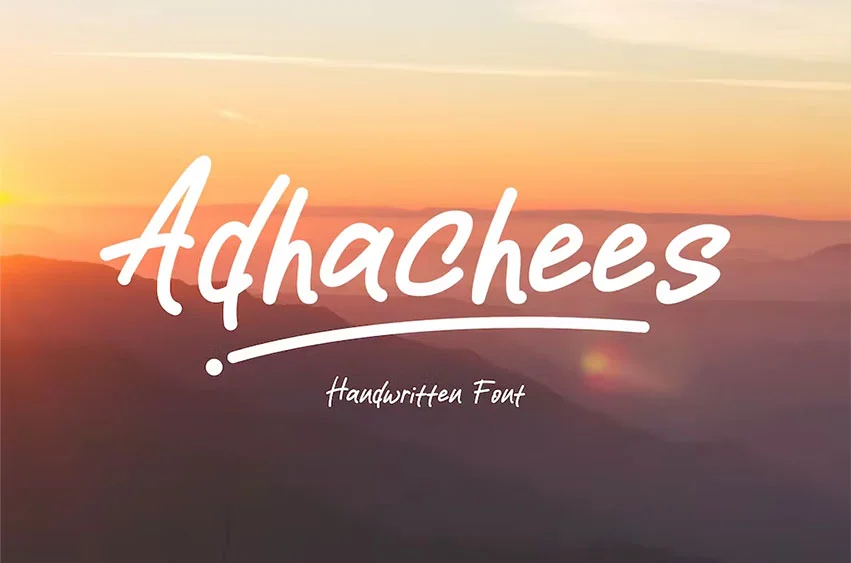
Adhachees Font Modern Font is a bold and authentic display font. The font is suitable for any branding project like logo, esport, and many more. outstanding in a wide range of contexts.